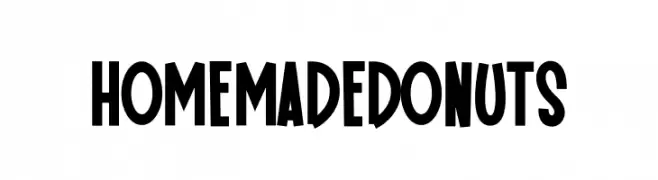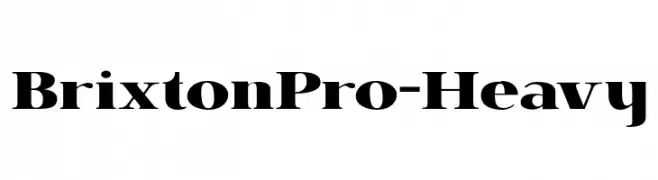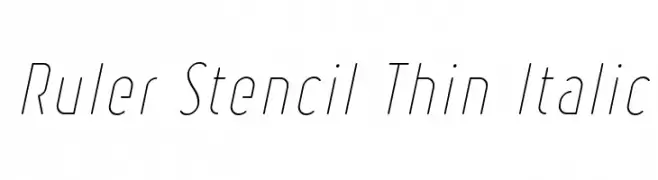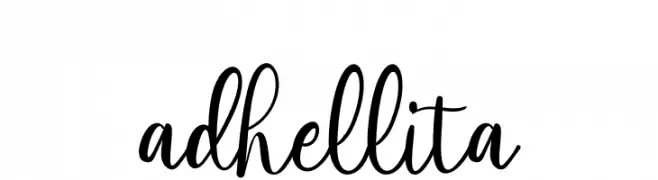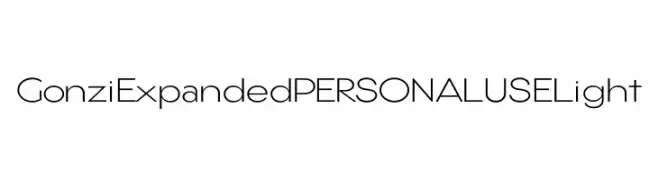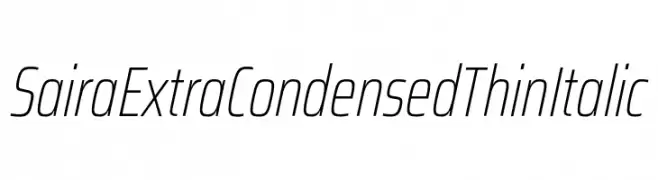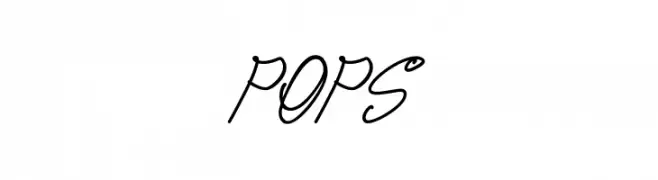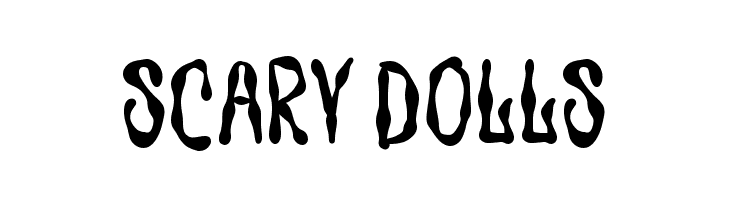
A bold, geometric font with dynamic and artistic design elements.
A bold, playful font with a hand-drawn, whimsical style.
A bold serif font with high contrast and strong, elegant serifs.
A delicate and elegant script font with flowing, cursive letterforms.
A thin, italic, stencil-style font with a modern and dynamic appearance.
A bold, decorative font with a three-dimensional effect and geometric design.
An elegant script font with intricate curls and flowing lines.
A modern, expanded, and geometric font with a light weight.
A sleek, extra condensed, thin italic font with a modern and elegant style.
A lively, handwritten cursive font with dynamic strokes.